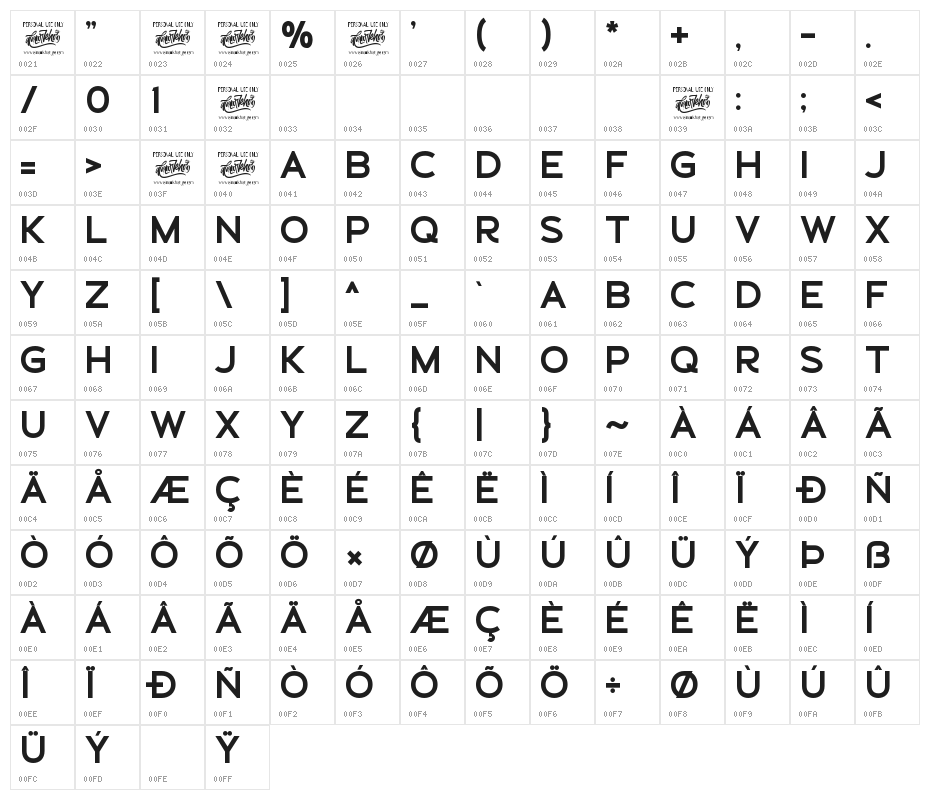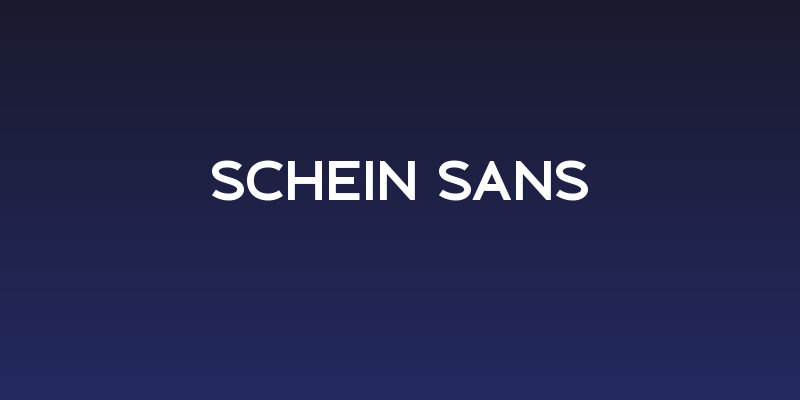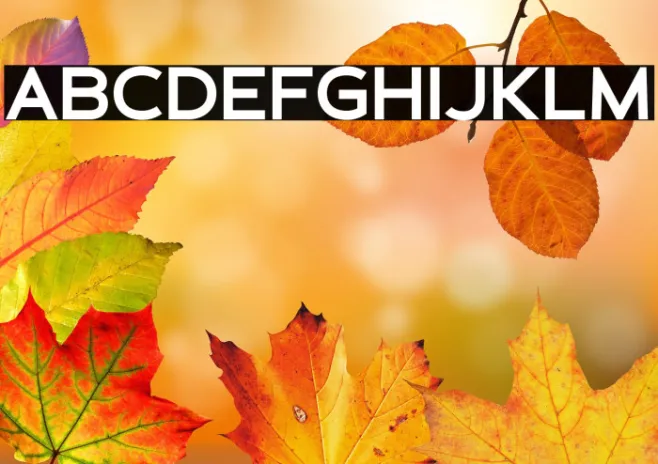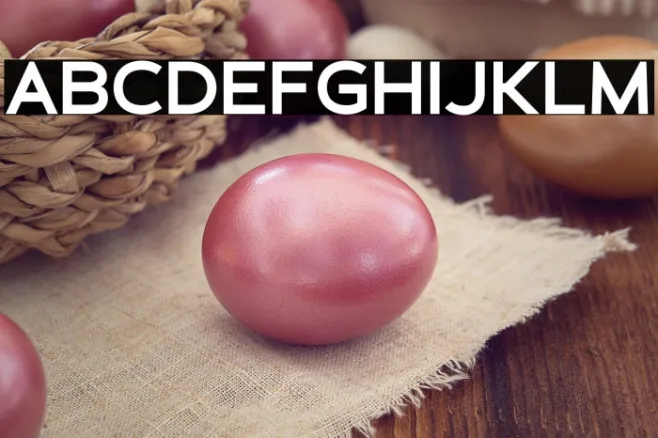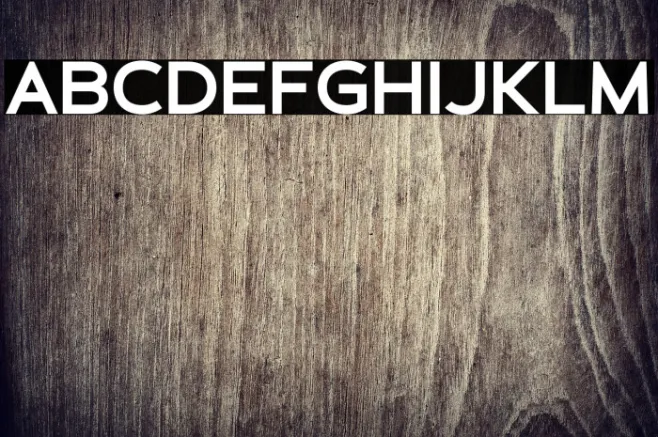
Schein Sans Font
Schein Sans Description
This font features a clean, modern sans-serif style with uniform stroke widths and a geometric structure. The uppercase letters are bold and impactful, while the lowercase letters maintain a consistent design that complements the uppercase. The numerals are straightforward and align well with the overall style. Special characters are included, maintaining the same geometric and bold characteristics. The font's simplicity and clarity make it versatile for various design applications.
| Proposed Projects | Ideal for branding, advertising, headlines, and digital media projects where clarity and modernity are essential. |